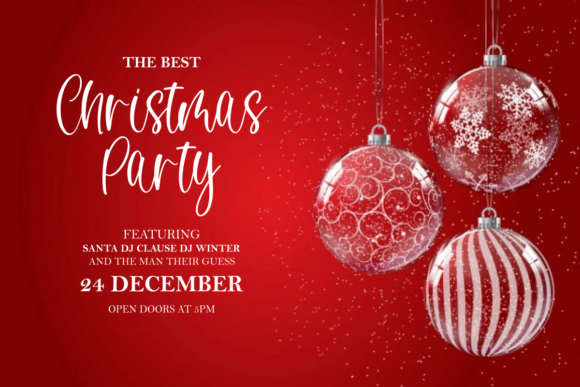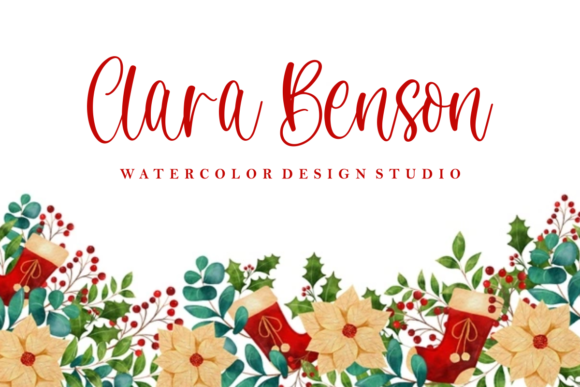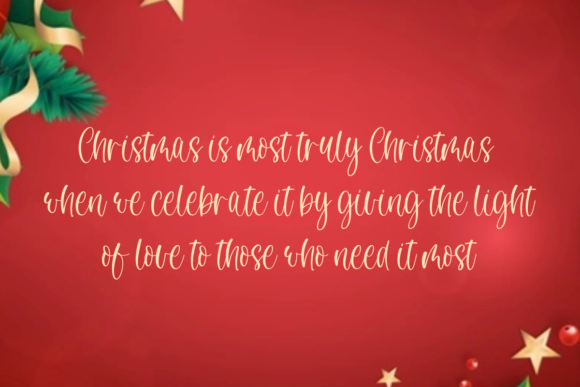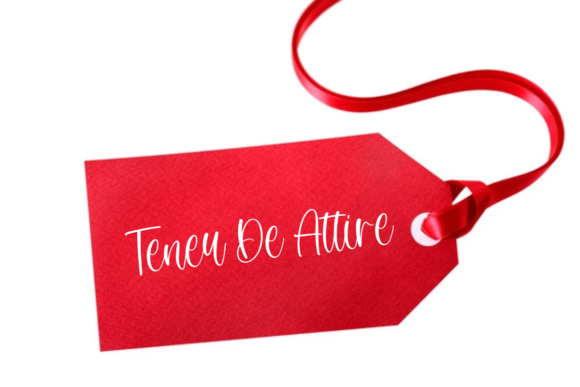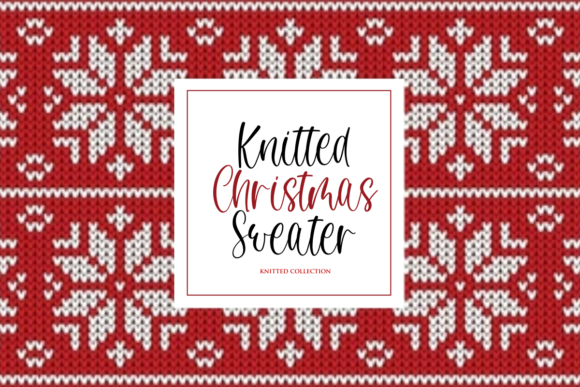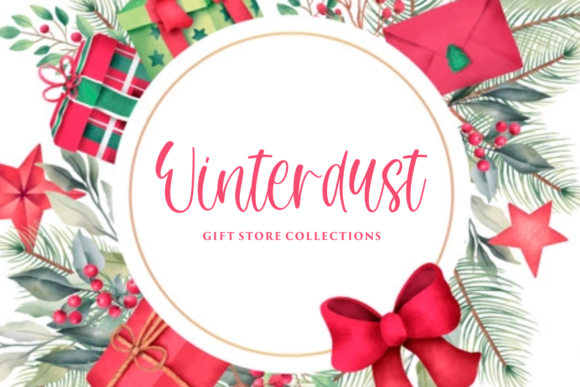
Introducing Christmas Dancing Font: Add a Joyful Touch to Your Designs
Are you looking for a font that can bring a festive and romantic feel to your designs? Look no further than the Christmas Dancing Font! This modern handwritten font is perfect for adding a touch of joy and elegance to a variety of design projects. In this article, we’ll explore the features and benefits of the Christmas Dancing Font, and show you how to make the most of this beautiful font in your designs.
What is Christmas Dancing Font?
Christmas Dancing Font is a modern handwritten font that is designed to add a touch of whimsy and romance to your designs. With its gentle and flowing lines, this font is perfect for creating beautiful and eye-catching designs for a variety of occasions, from Christmas cards and invitations to wedding stationery and more.
Key Features of Christmas Dancing Font
- Modern Handwritten Style: Christmas Dancing Font has a modern handwritten style that is both elegant and playful.
- Versatile: This font can be used for a variety of design projects, from Christmas cards and decorations to wedding stationery and more.
- Easy to Read: The font is clear and easy to read, making it perfect for use in both digital and print designs.
- High-Quality: The font is of high quality, with crisp and clean lines that will look great in any design.
Benefits of Using Christmas Dancing Font
There are many benefits to using the Christmas Dancing Font in your designs. Here are just a few:
- Adds a Touch of Whimsy: This font adds a touch of whimsy and romance to your designs, making them stand out from the crowd.
- Perfect for Festive Designs: The Christmas Dancing Font is perfect for creating festive designs for Christmas, Valentine’s Day, and other special occasions.
Design Ideas Using Christmas Dancing Font
The Christmas Dancing Font is a versatile font that can be used for a wide range of design projects. Here are a few ideas to get you started:
- Christmas Cards and Invitations: Use the Christmas Dancing Font to create beautiful and festive Christmas cards and invitations.
- Wedding Stationery: This font is perfect for creating romantic and elegant wedding stationery, including invitations, programs, and place cards.
- Social Media Graphics: Use the Christmas Dancing Font to create eye-catching social media graphics for special occasions, such as Christmas and Valentine’s Day.
- Digital and Print Designs: This font can be used for both digital and print designs, including brochures, flyers, and posters.
Tips for Using Christmas Dancing Font
Here are a few tips for using the Christmas Dancing Font in your designs:
- Use it with Other Fonts: The Christmas Dancing Font can be paired with other fonts to create a unique and eye-catching design.
- Experiment with Colors: This font looks great in a range of colors, so don’t be afraid to experiment and find the perfect color for your design.
- Keep it Simple: The Christmas Dancing Font is a beautiful font, so keep your design simple and let the font do the talking.
The Christmas Dancing Font is a beautiful and versatile font that is perfect for adding a touch of joy and romance to your designs. With its modern handwritten style, ease of use, and compatibility with a range of design software, this font is a must-have for designers and crafters. Whether you’re creating Christmas cards and invitations, wedding stationery, or social media graphics, the Christmas Dancing Font is sure to make your designs stand out from the crowd.